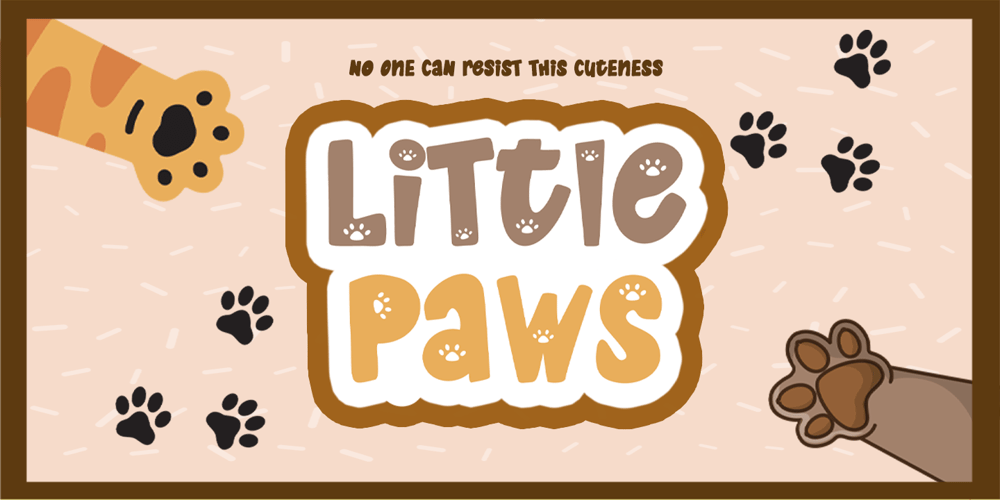
Little Paws Font Family was designed by Doli Harahap and published by Tigade Std. Little Paws contains 3 styles and family package options. Little Paws. Are you team Cat or team Dog? Doesn’t matter which side you are pick to, this font is cuteness overload. It is for everyone, not only limited to Cat or Dog but also open for any Pet Lovers.This font is suitable for happy theme, cute, party, holiday, kids and many more. It is also suitable for Logo, Cards, Branding, Social Media, Youtube Thumbnail, Advertisement, Posters, any many others.To make it easier for you to design, we provide two additional font family to enhance the beauty of the design.Features:- Standard Characters (Uppercase and Lowercase)- Numerals- Punctuation- International CharactersDisclaimer:Clips arts shown in the posters/images are not included. It is for promotional purpose.Enjoy designing and stay Safe!Tigadestd